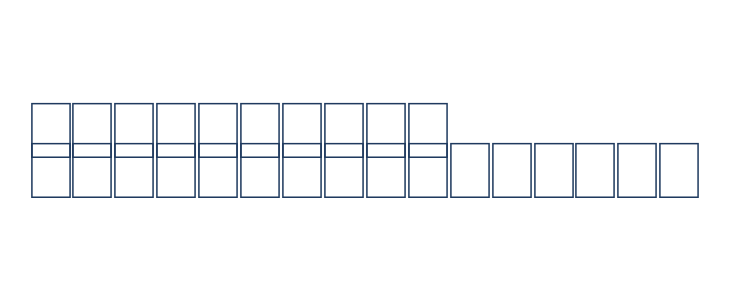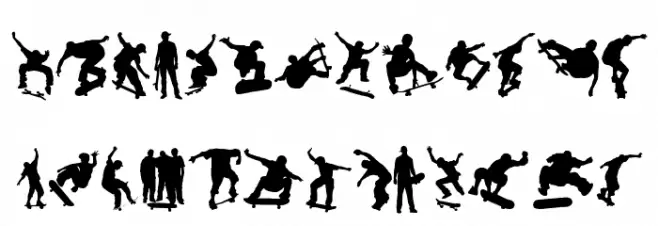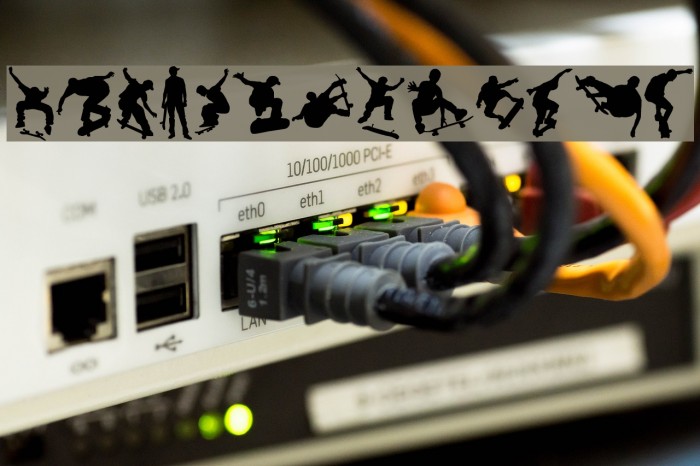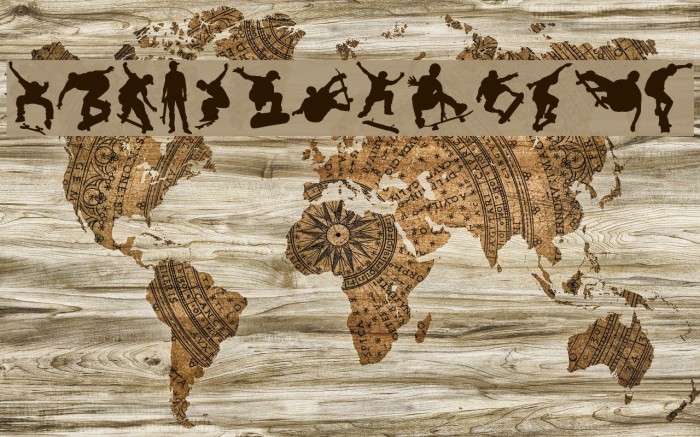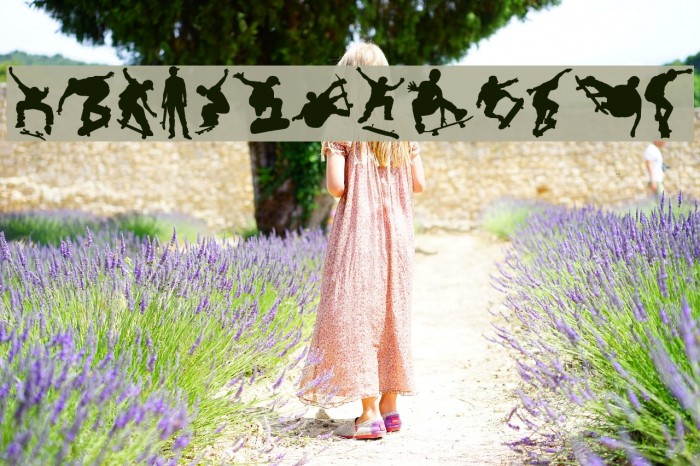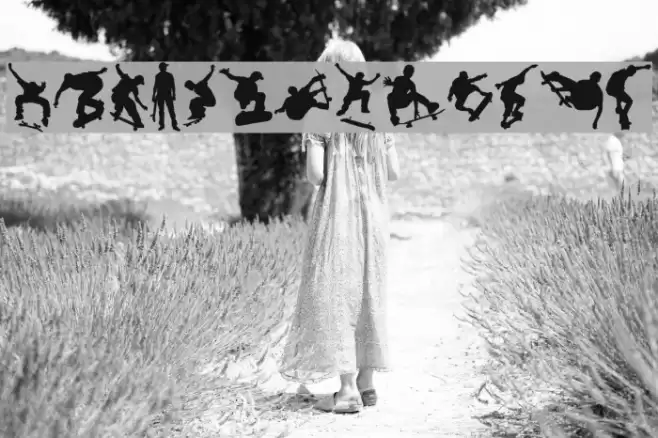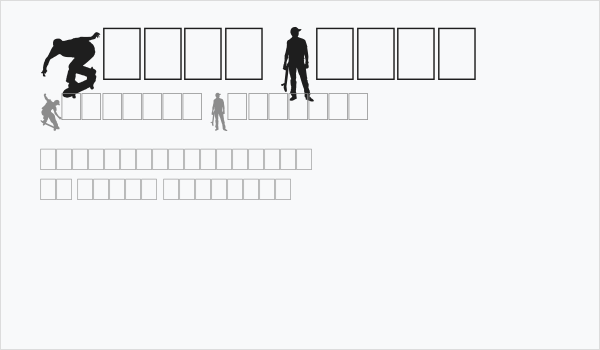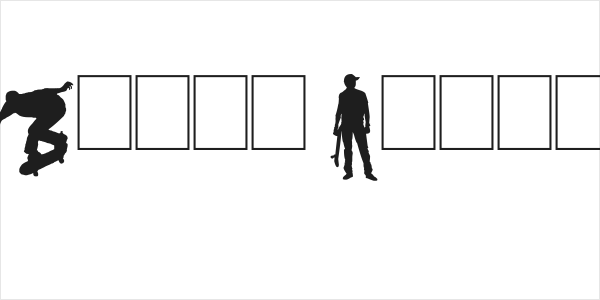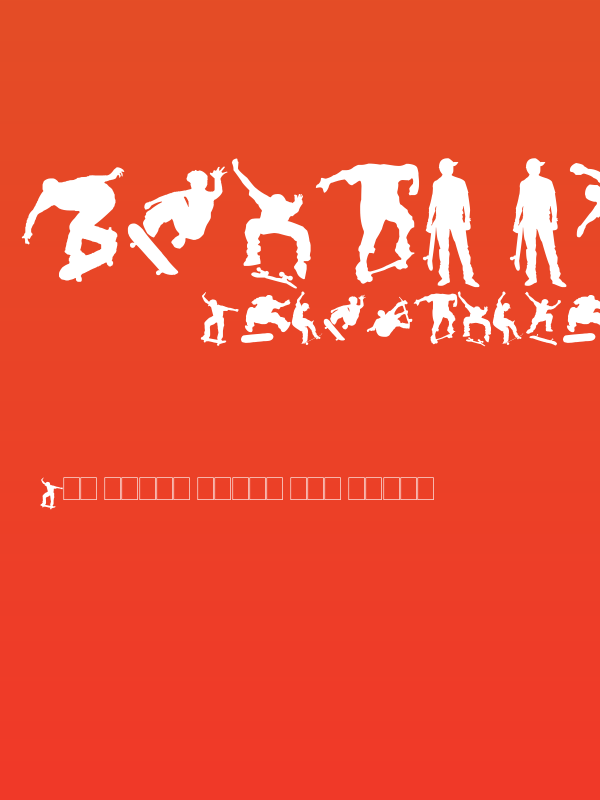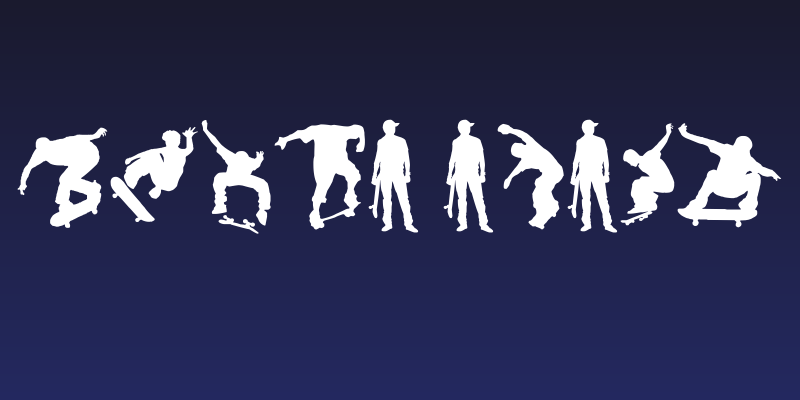
Board Dudes Font
Board Dudes Description
A decorative display font composed of black silhouettes of skateboarders in various dynamic poses, forming each character and symbol with unique action stances and groupings.
| Overall Style | Decorative, Urban, Playful |
| Use Case | Headlines, Posters, Logos, Themed event graphics |
| Proposed Projects | Youth-oriented branding, skate shop signage, event posters, extreme sports promotions, apparel graphics. |